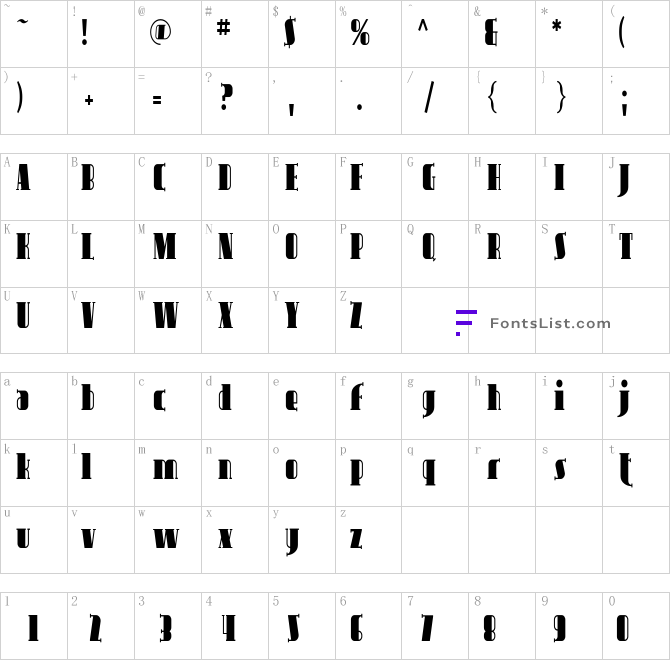
- Font Name:Avondale Cond
- Subfamily:DerekVogelpohl: Avondale Cond: 2001
- Full Name:Avondale Cond
Avondale-Cond.ttf is a very beautiful artistic font, Avondale-Cond.ttf is widely used in the design and printing of various books and pictures,Avondale-Cond.ttf has a strong visual impact,Avondale-Cond.ttf is a commonly used font in newspapers, magazines and books, and is used in posters, e-commerce Poster design, store design, logo design, font design and other fields.Avondale-Cond.